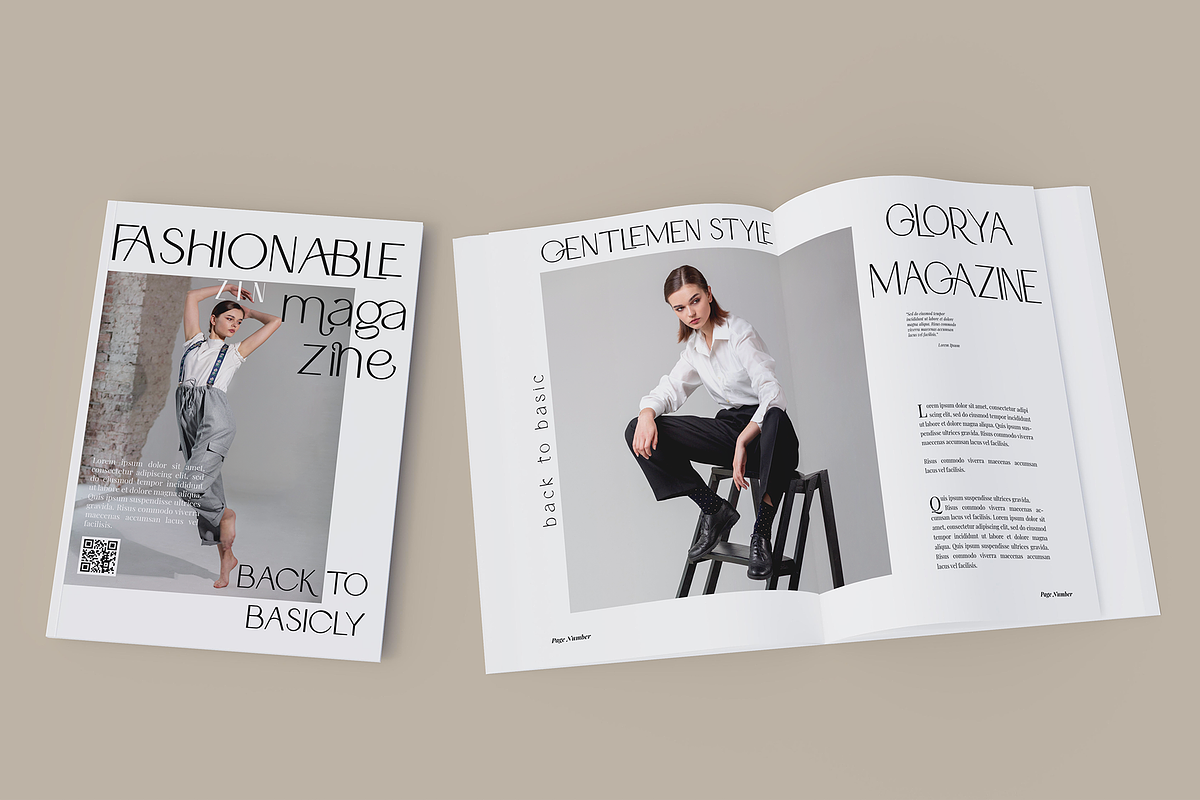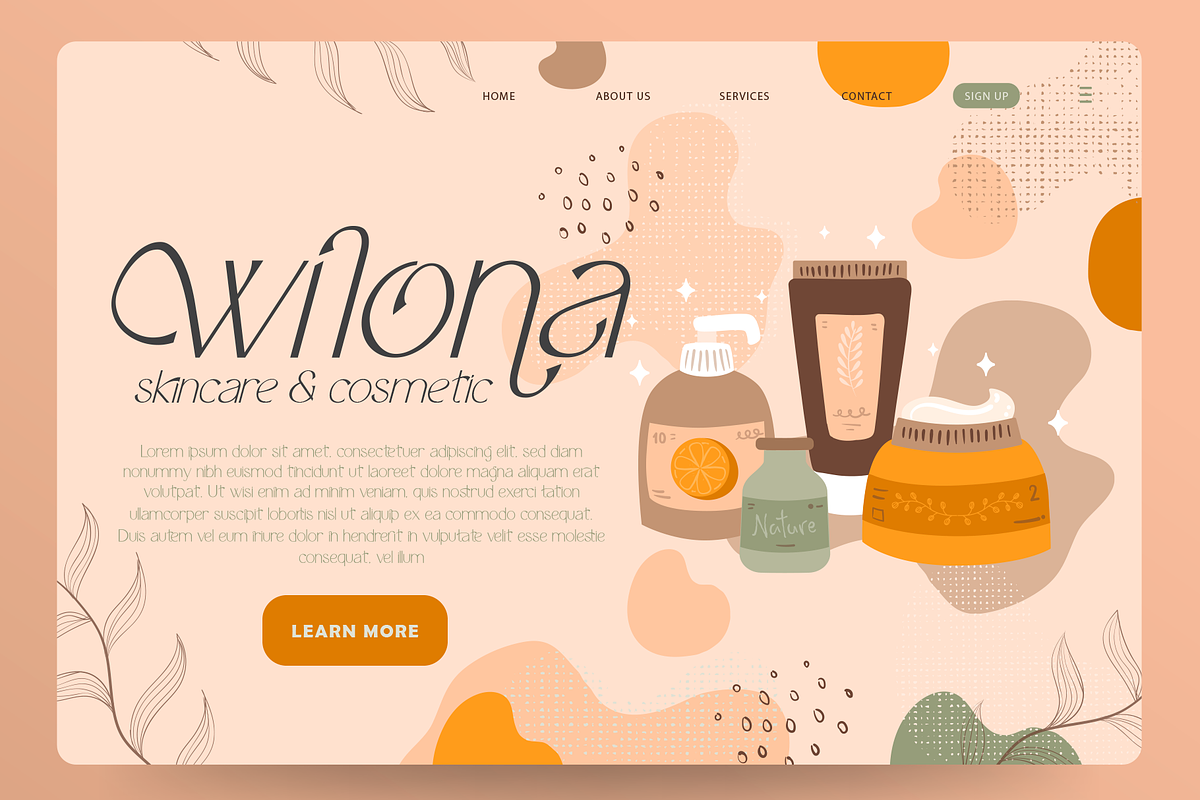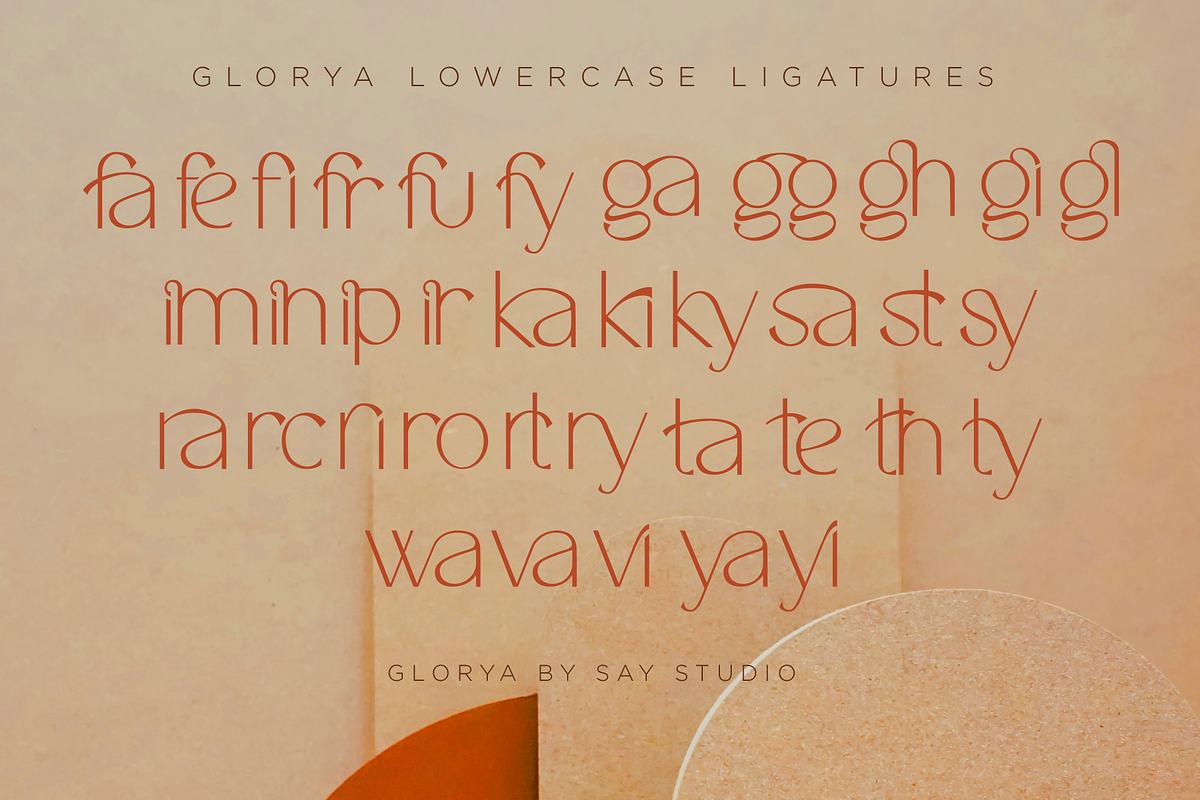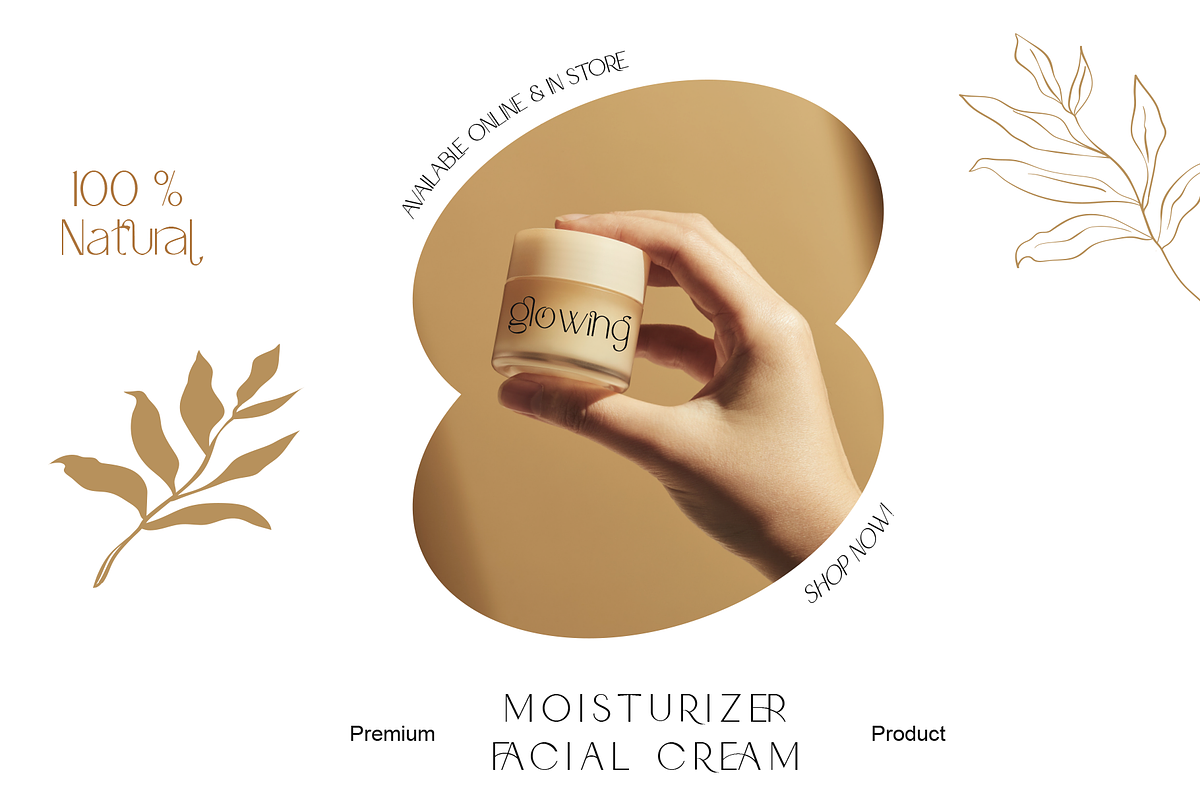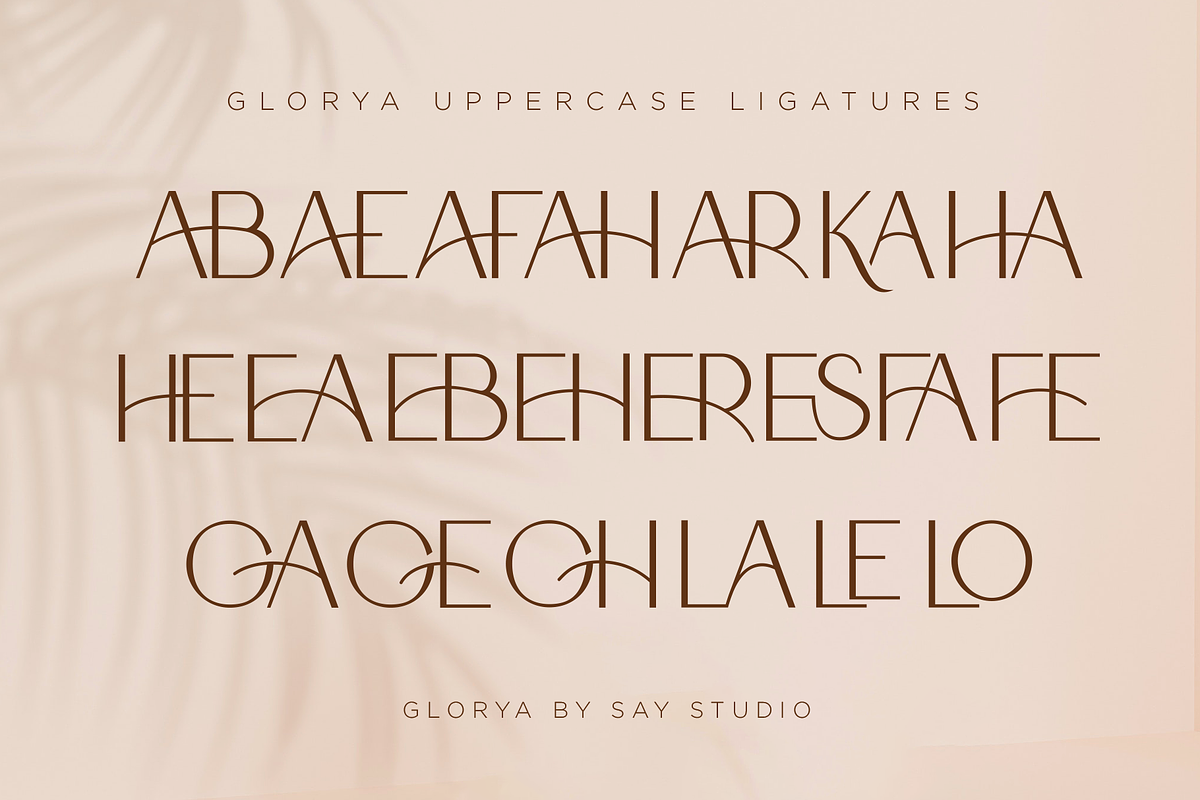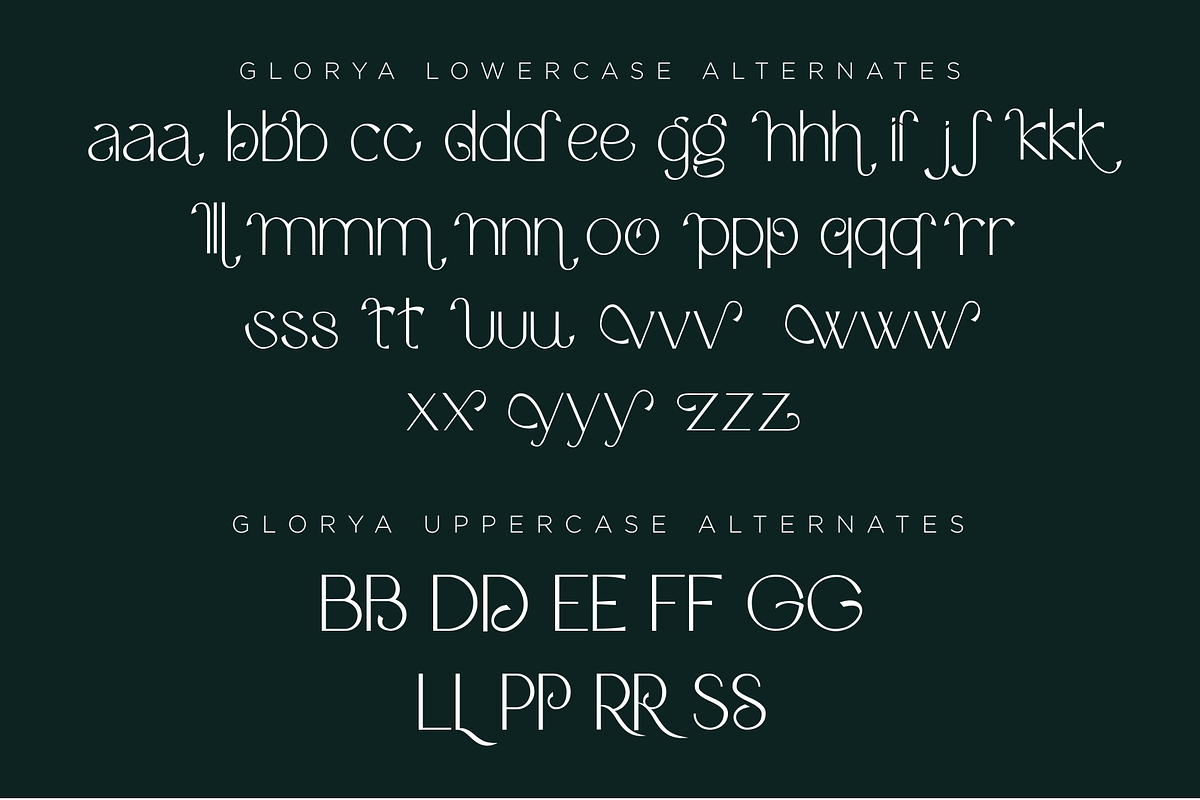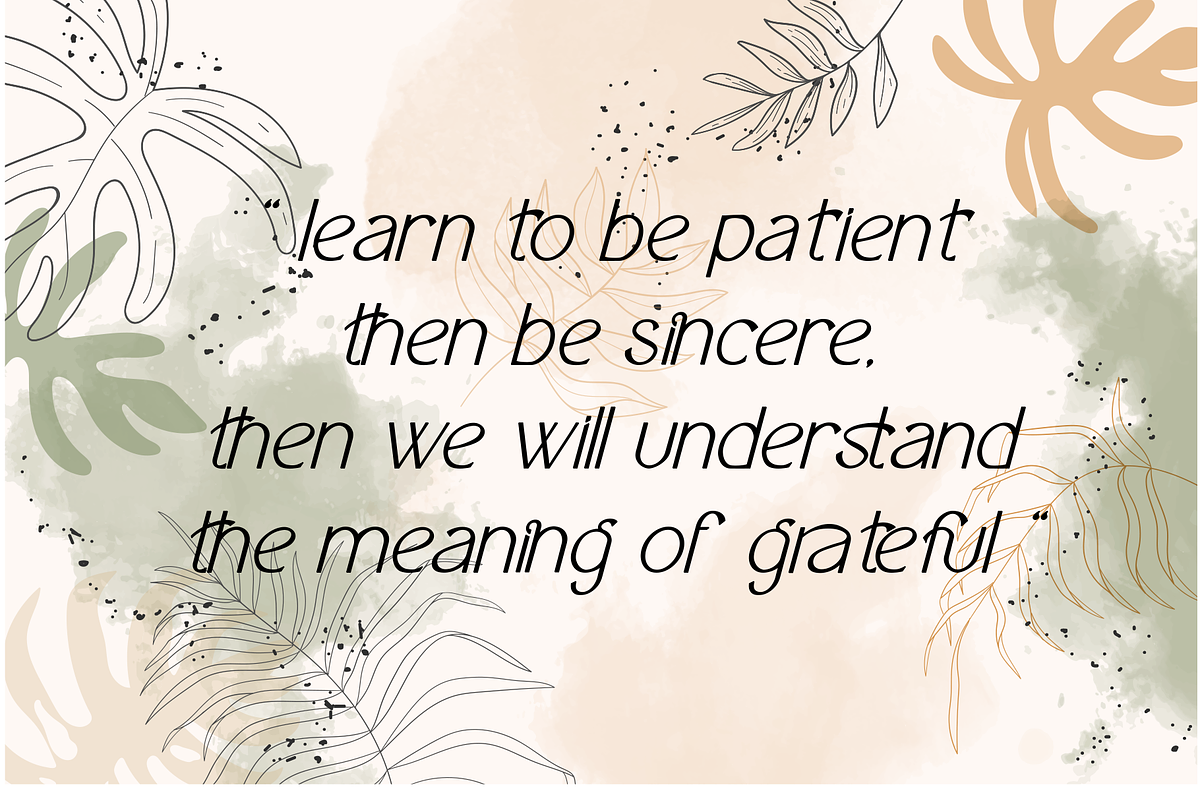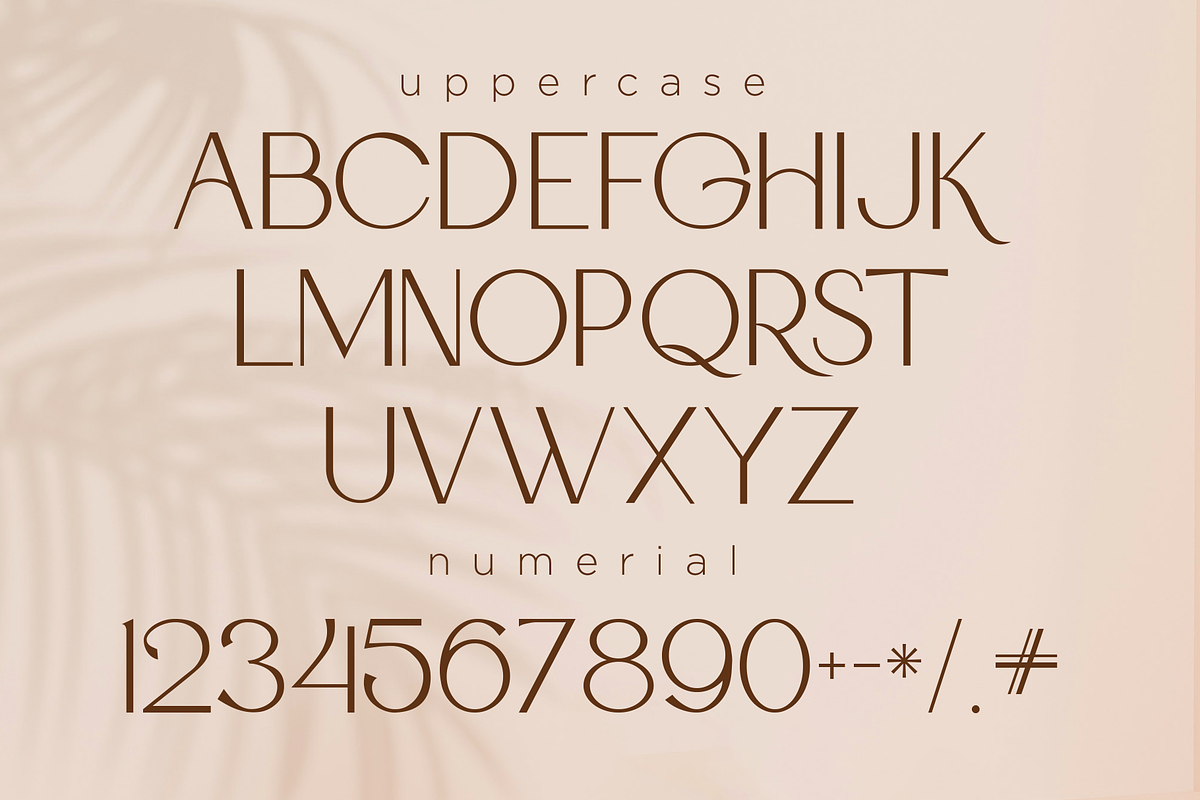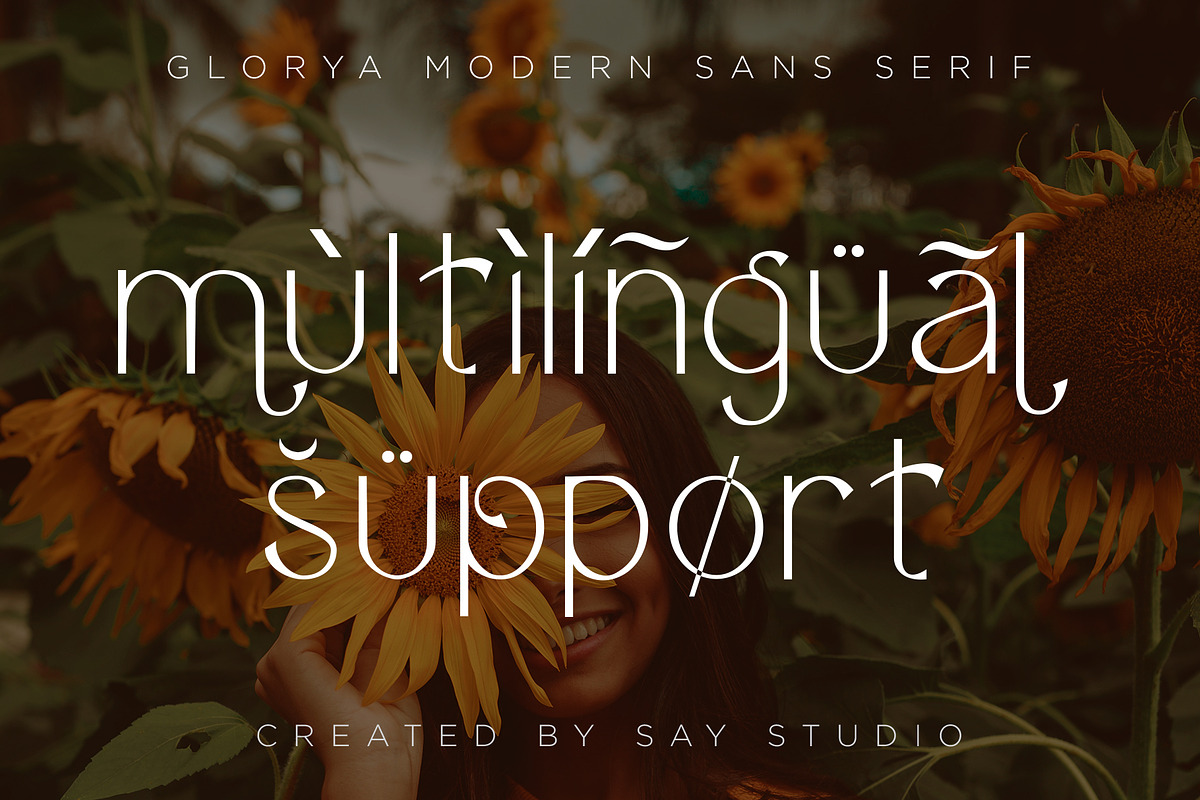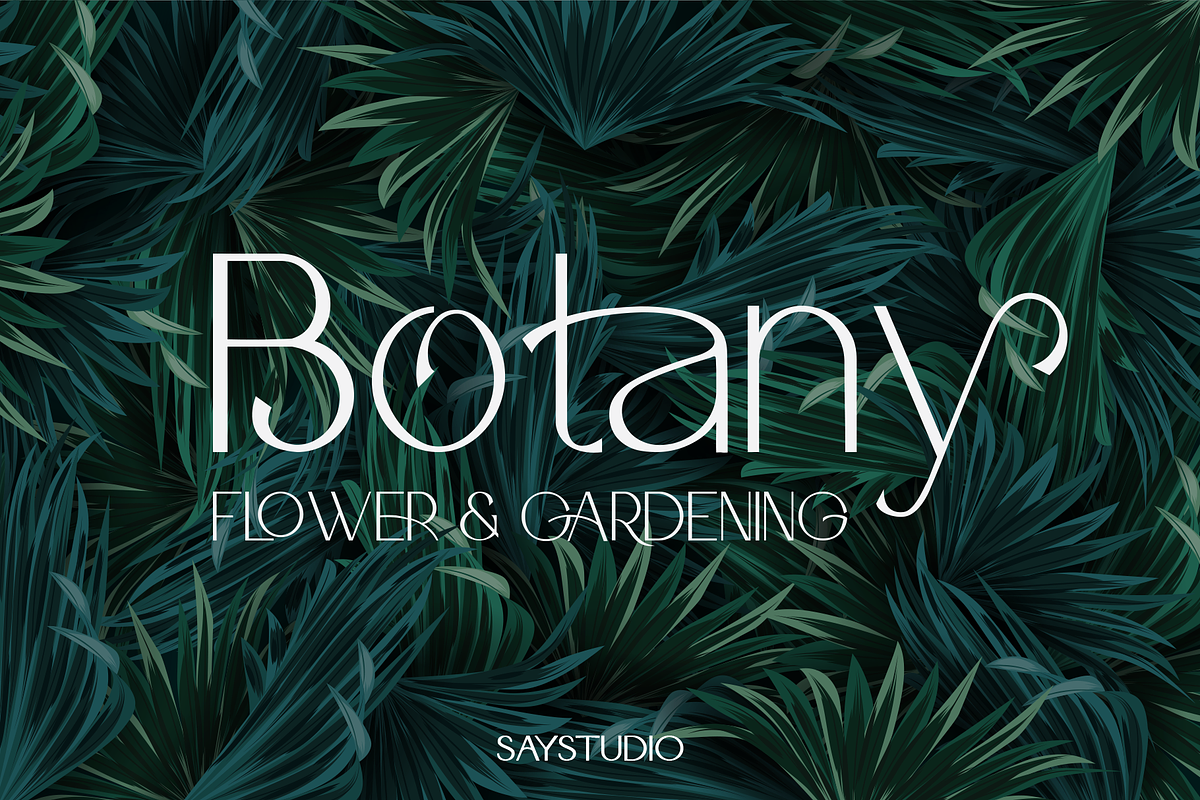
Glorya Modern Stylish
Glorya is a Modern Stylish Sans Serif
A new sans serif that we created special for branding needs, with extra ligature in unique shape add value of your brand. It so nice to leverage designer or product owner that need solutions to make their design look more stylish and modern. And specially for satisfy font, We prepared any ligatures, and any alternate characters to help you create unlimited variations for your creative needs.
Any options to get creative variations (combination of Alternate and Ligatures) and multilingual support